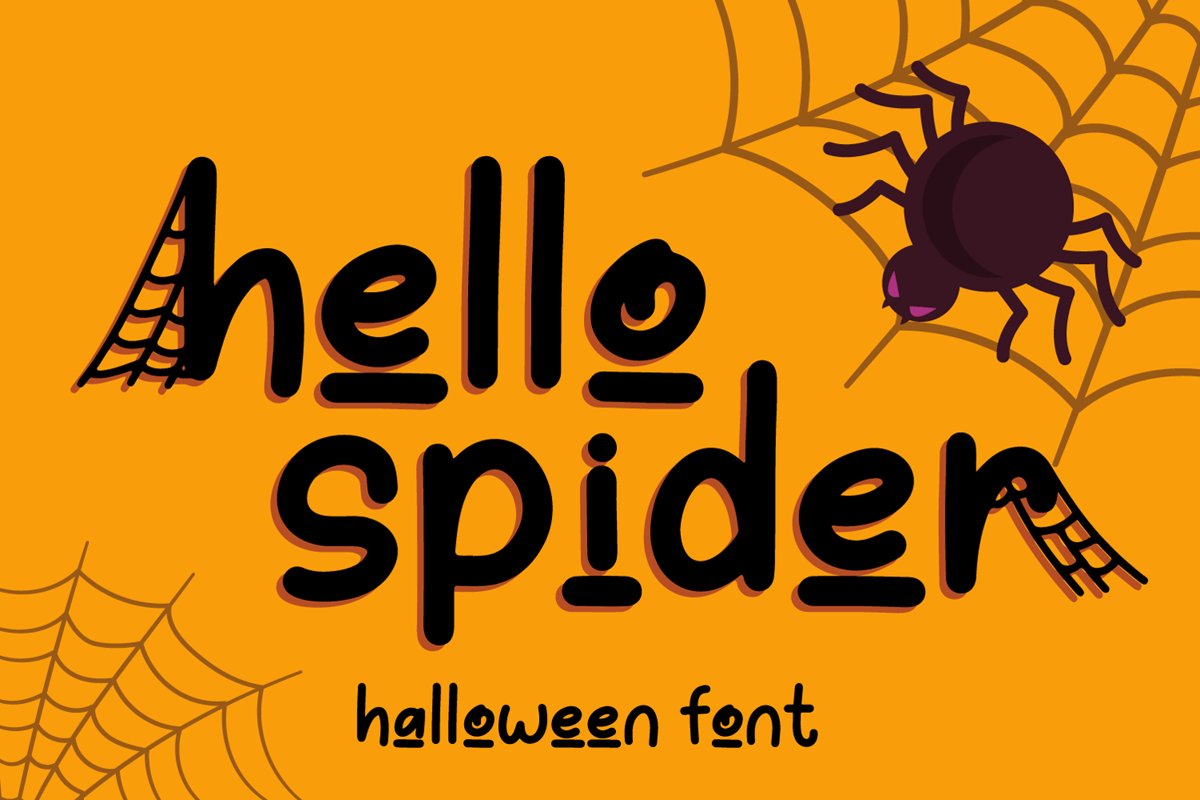
hello spider is Halloween font theme with display font of spider web that perfect for any halloween events and promotions.
hello spider is perfect for branding, logo, invitation, stationery, social media post, product packaging, merchandise,
blog design, game titles, cute style design, Book/Cover Title and more.
- Beginning & Ending stylistic set